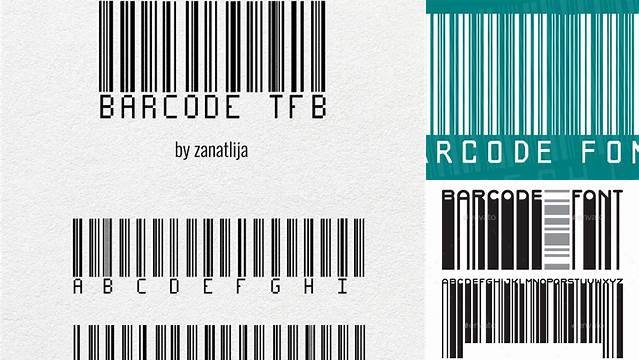
Introduction to Barcode Fonts for Windows 7
Hey guys! Ever wondered how those cool barcodes on products actually work? Well, a big part of it is the barcode font itself. If you're using Windows 7 and need to generate barcodes, you're going to need the right font. Downloading a barcode font for free might seem tricky, but it's totally doable. Let's dive into the world of barcode fonts and how you can get them running on your Windows 7 system. You’ll find that having the correct font is essential for creating readable barcodes. Whether you are making labels for inventory management, product tagging, or any other application, a reliable barcode font is a must-have tool. This article will guide you through the process, ensuring you have the best resources and tips to make your barcode generation smooth and efficient. So, stick around, and let's get started!
Why Use Barcode Fonts in Windows 7?
Okay, so why bother with barcode fonts at all? Well, using barcode fonts in Windows 7 allows you to easily create barcodes in documents, spreadsheets, and other applications. Imagine trying to manually draw each barcode – yikes! With a barcode font, you just type in the corresponding numbers or letters, and the font turns it into a scannable barcode. It’s super efficient and saves a ton of time. Plus, it’s way more accurate than trying to create barcodes by hand. You can use these fonts in various software programs, such as Microsoft Word or Excel, making it a flexible solution for many tasks. Think about the possibilities: inventory tracking, product labeling, and much more. The versatility of barcode fonts makes them an invaluable asset for businesses and individuals alike. The ease of use and accuracy they provide are unmatched, especially when dealing with large volumes of data. Getting the right font set up is a game-changer, trust me!
Code 128 Barcode Font for Windows 7
One of the most popular barcode types out there is Code 128. If you need a Code 128 barcode font for Windows 7, you're in luck – there are plenty of options available. Code 128 is a versatile barcode that can encode alphanumeric characters, making it suitable for a wide range of applications. When downloading a Code 128 font, make sure it supports the full character set and includes the necessary start and stop characters. These characters are essential for the barcode scanner to correctly interpret the barcode. You'll also want to check the font's documentation for any specific instructions on how to use it. Some Code 128 fonts require you to use specific characters as start and stop codes, while others handle this automatically. Getting the right Code 128 font can significantly improve the efficiency of your barcode generation process. It’s a widely used standard, so you'll find plenty of resources and support if you need it.
Code 39 Barcode Font for Windows 7
Another common barcode type is Code 39. This one's a bit simpler than Code 128 and is often used for shorter codes. If you need a Code 39 barcode font for Windows 7, there are some great free options out there. Code 39 can encode uppercase letters, numbers, and a few special characters. It's a good choice for applications where you don't need to encode a wide range of characters. When using a Code 39 font, you typically need to include an asterisk (*) at the beginning and end of the text you want to encode. This tells the scanner where the barcode starts and stops. Make sure the font you choose supports this convention. Also, double-check that the font is readable and produces clear, scannable barcodes. A good Code 39 font will make your labeling tasks much easier and more reliable. It’s a classic barcode format, and you’ll find it’s perfect for many basic barcode needs.
EAN Barcode Font for Windows 7
For those of you dealing with retail products, you've probably heard of EAN barcodes. These are the barcodes you see on most products in stores. If you need an EAN barcode font for Windows 7, you'll want to make sure you get one that supports the EAN standard. EAN barcodes come in a few different formats, such as EAN-13 and EAN-8, so make sure the font you choose supports the specific format you need. Generating EAN barcodes can be a bit more complex than other barcode types because they have specific rules for checksum digits and formatting. You might need to use a barcode generator tool to create the correct EAN barcode string before you can encode it with the font. But once you get the hang of it, it's a breeze. EAN barcodes are essential for retail applications, and having the right font will ensure your products are properly labeled and scannable. It's a vital part of the retail process!
UPC Barcode Font for Windows 7
Similar to EAN, UPC barcodes are another common type used in retail, especially in North America. If you're working with products for the US or Canada, you'll likely need a UPC barcode font for Windows 7. UPC barcodes also have specific formatting rules and checksum requirements, so you might need a barcode generator to create the correct code. There are two main types of UPC barcodes: UPC-A and UPC-E. UPC-A is the standard 12-digit barcode, while UPC-E is a shorter version used for smaller products. When choosing a UPC font, make sure it supports the type of UPC barcode you need. Like EAN barcodes, UPC barcodes are crucial for retail, and the right font will help you create accurate and scannable codes. It's all about making sure your products can be easily scanned at the checkout! So, take the time to get it right, and you'll save yourself a lot of headaches down the road.
Barcode Generator Software for Windows 7
Okay, so sometimes just having the font isn't enough. If you need to generate complex barcodes like EAN or UPC, you might want to use barcode generator software for Windows 7. These programs can help you create the correct barcode strings, including checksum digits and formatting. Many barcode generator programs also allow you to customize the size, color, and other properties of your barcodes. Some are free, while others are paid, so you can choose one that fits your needs and budget. Using barcode generator software can simplify the process of creating barcodes, especially if you're not familiar with the technical details of each barcode type. It’s a great way to ensure your barcodes are accurate and scannable. Plus, many of these programs offer batch processing, which is a huge time-saver if you need to generate a lot of barcodes. So, consider adding barcode generator software to your toolkit – it can make your life a whole lot easier!
Common Mistakes When Using Barcode Fonts and How to Avoid Them
To wrap things up, let's talk about common mistakes when using barcode fonts and how to avoid them. One common mistake is downloading fonts from untrusted sources. This can expose you to malware or corrupted files. Always download fonts from reputable websites. Another mistake is using the wrong barcode type for your application. EAN and UPC are for retail, Code 128 is versatile, and so on. Choose the right tool for the job. A third mistake is not testing your barcodes with a scanner. Always test your barcodes to ensure they're readable before using them in production. Another mistake is ignoring the font license. Read the license agreement to understand how you can use the font legally. Finally, neglecting print quality can lead to unscannable barcodes. Use a high-resolution print setting and ensure your printer has enough ink or toner. By avoiding these common mistakes, you'll create barcodes that are effective, reliable, and secure. So, learn from these pitfalls and become a barcode master!